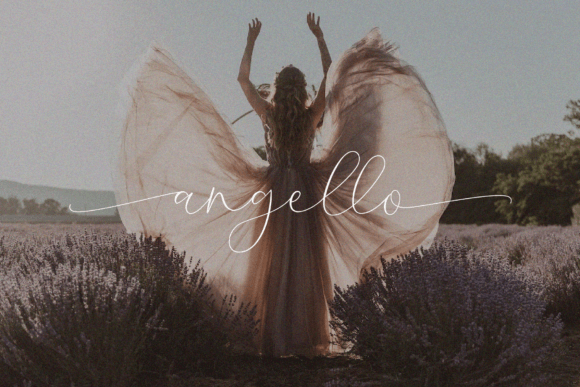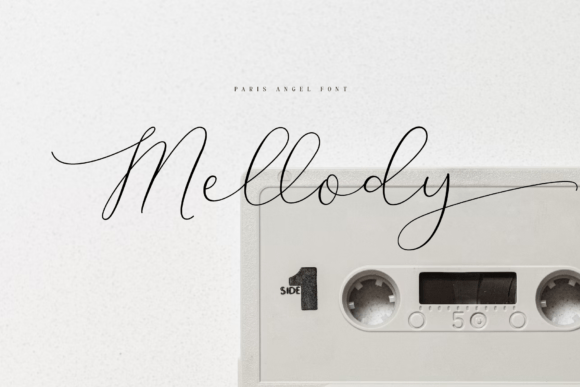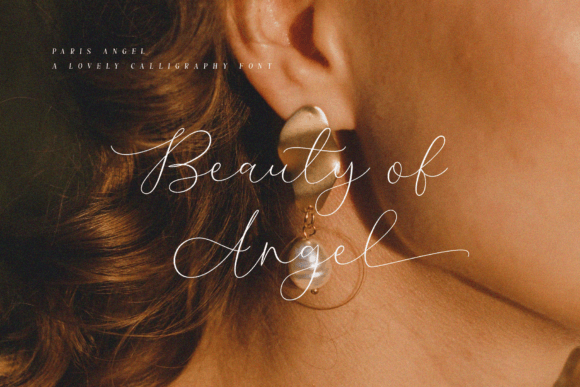
Introduction to Paris Angel Font
As designers, we’ve all had those moments when we stumble upon a design element that instantly elevates our creative project. For some, it’s a stunning image, while for others, it’s a beautifully crafted font. For me, it was the discovery of the Paris Angel Font – a calligraphy masterpiece that left me spellbound. Its elegant lines and refined curves transported me to the City of Light, where romance and sophistication reign supreme.
What makes Paris Angel Font truly special is its ability to capture the essence of romantic handwriting. With meticulous attention to detail, this font exudes timeless beauty and sophistication, making it a valuable resource for designers looking to add a touch of charm to their projects. Whether you’re working on a wedding invitation or a branding campaign, Paris Angel Font is sure to leave a lasting impression.
Key Features of Paris Angel Font
- Unique, elegant design with a touch of French flair, ideal for luxury or high-end branding
- Perfect for use in logos, headings, and titles, adding a touch of sophistication to any design
Honest Review: Paris Angel Font
I recently had the chance to work with the Paris Angel Font on a creative project, and I must say it was a pleasant experience. The font is a high quality, elegant script font that is perfect for any design resource that requires a touch of sophistication.
- ✨ High quality design that is perfect for various creative projects.
- ✨ Elegant script style that adds a touch of sophistication to any design.
- ⚠️ Limited character set, which may not be ideal for designers who need to use the font for extended text.
- ⚠️ Not all characters may be supported in certain fonts or applications.
Overall, I was impressed with the Paris Angel Font. It’s a beautiful, high quality font that is perfect for designers who want to add a touch of elegance to their creative project. While it may have some limitations, I believe it’s an excellent choice for designers who are looking for a free, high quality font.
The Paris Angel Font is a high-quality, free download design resource ideal for creative projects that require a touch of elegance and sophistication. This versatile font features a transparent background, making it easy to incorporate into various design elements.
Common Use Cases for Paris Angel Font
The Paris Angel Font is